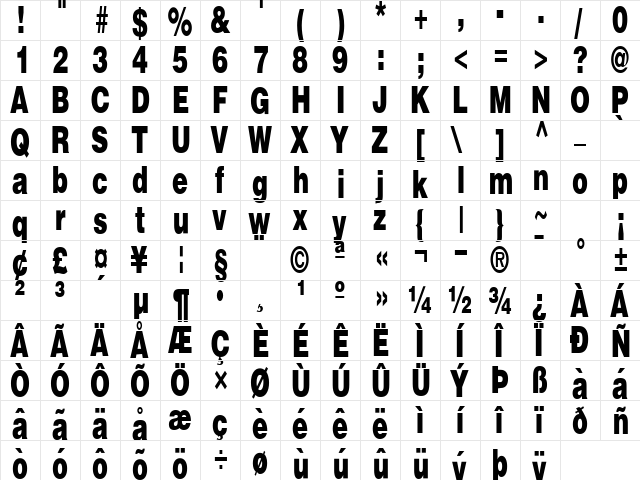
Fire Regular
Design Context for Fire Typeface
Fire offers clean, dependable letterforms without strong stylistic allegiance, making it a practical choice for designers who need flexibility.